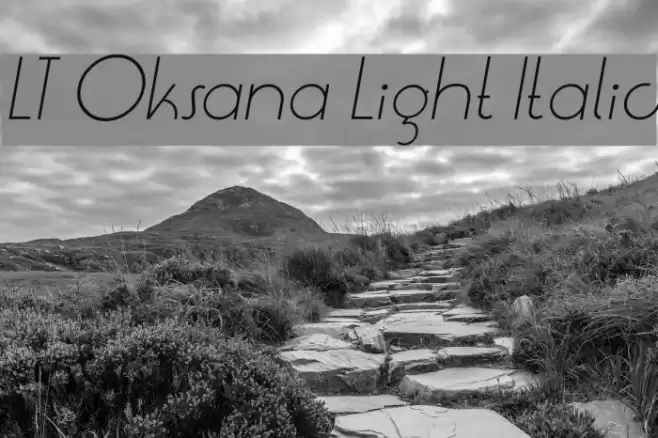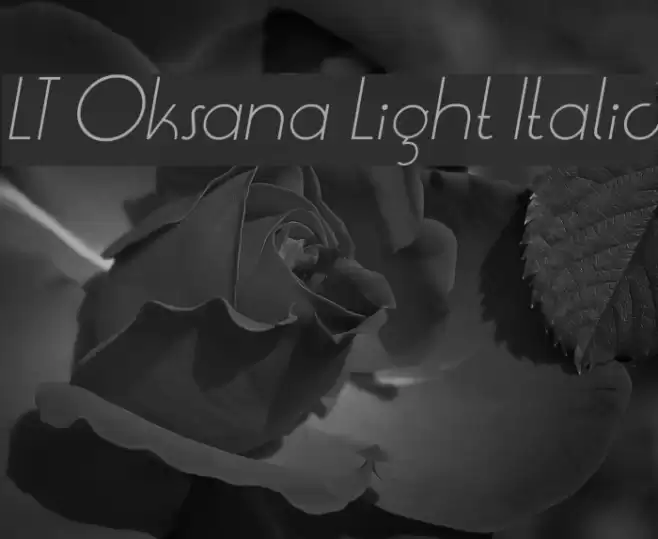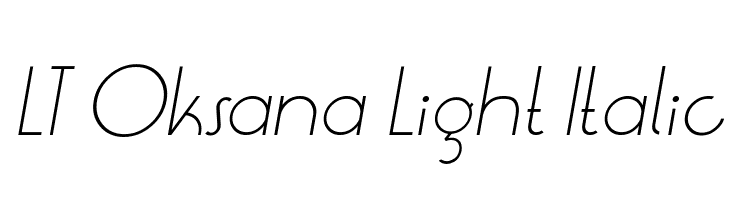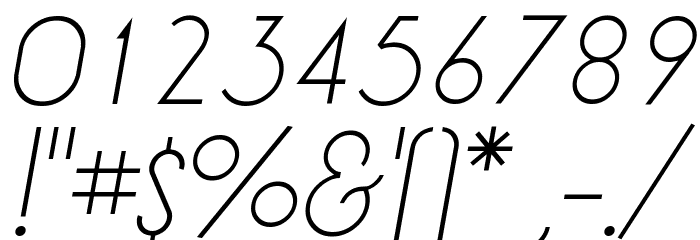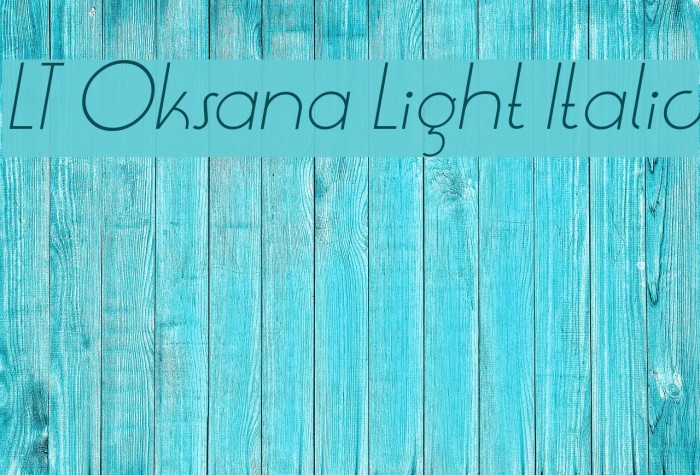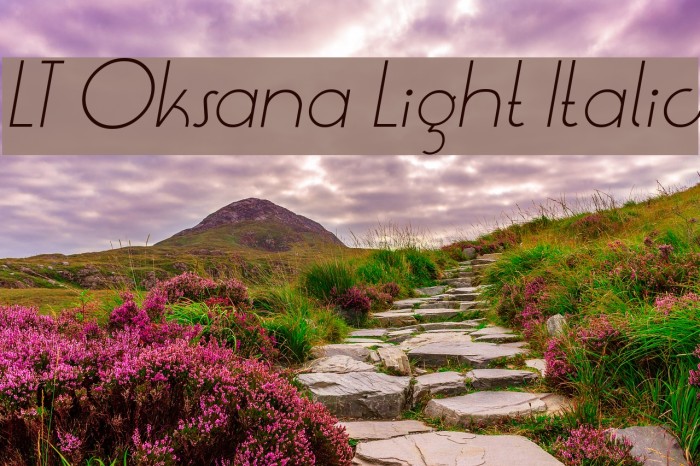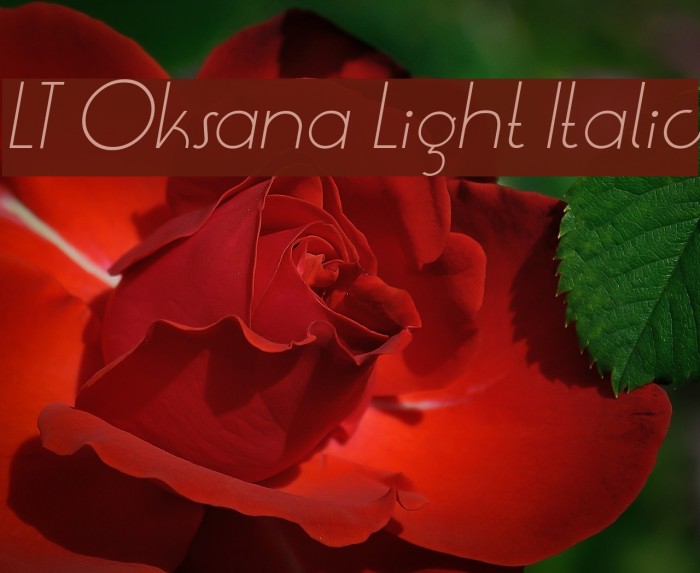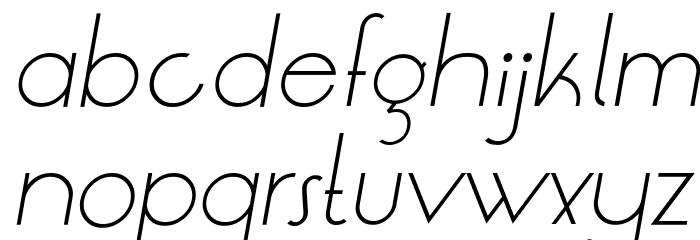
LT Oksana Light Italic Font
LT Oksana Light Italic Description
This font features a sleek and elegant design with a light and airy feel. The characters are slightly italicized, giving them a sense of motion and fluidity. The strokes are thin and consistent, contributing to a modern and sophisticated appearance. The uppercase letters are tall and slender, while the lowercase letters maintain a harmonious balance with rounded forms. The numerals are clear and legible, matching the overall style of the alphabet. Special characters are designed with the same attention to detail, ensuring uniformity across all glyphs.
A sleek, light, and italicized font with a modern and elegant style from Retro fonts.
- Proposed Projects: Ideal for fashion magazines, elegant invitations, branding for luxury products, and modern web design.
- Use Case: Headlines, Logos, Invitations